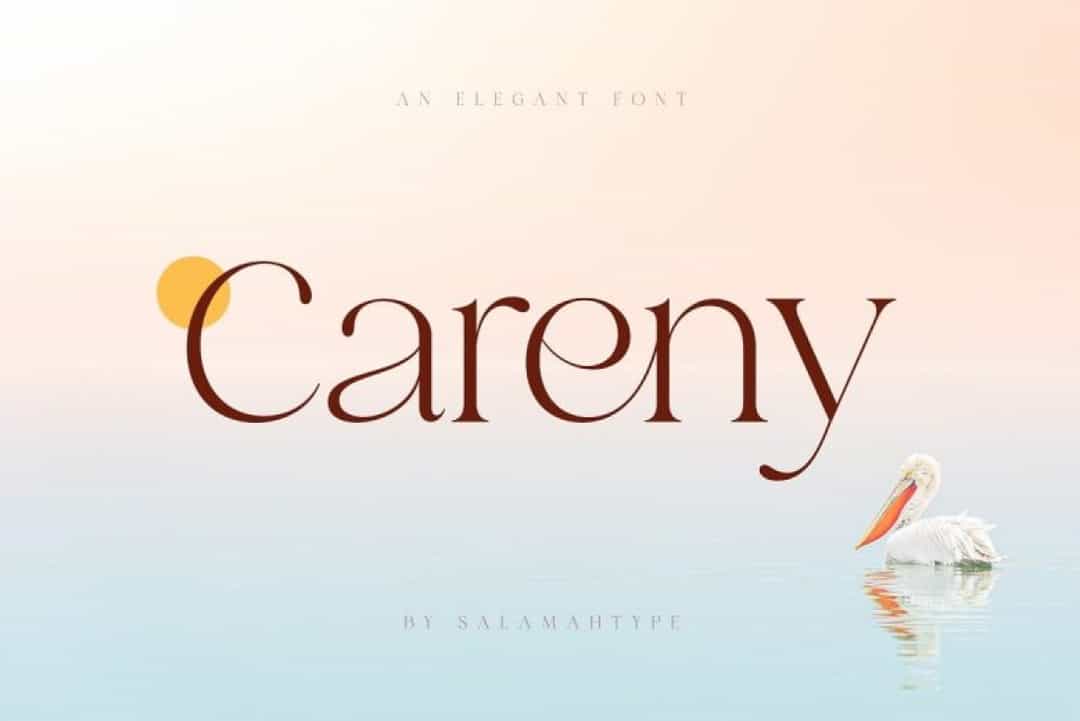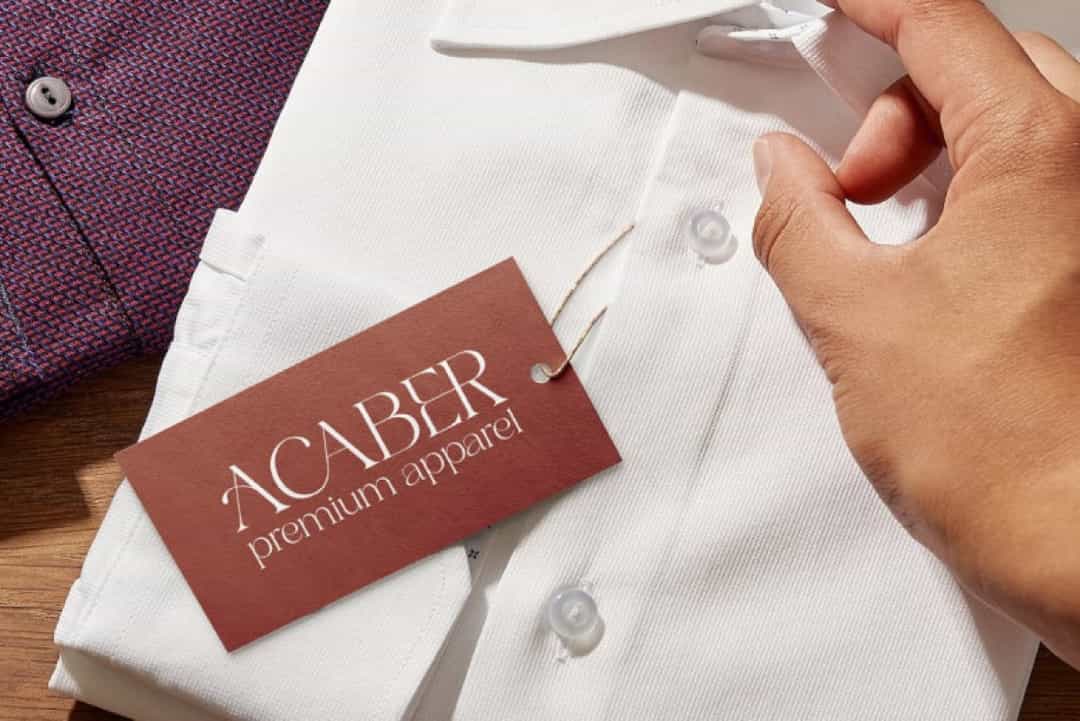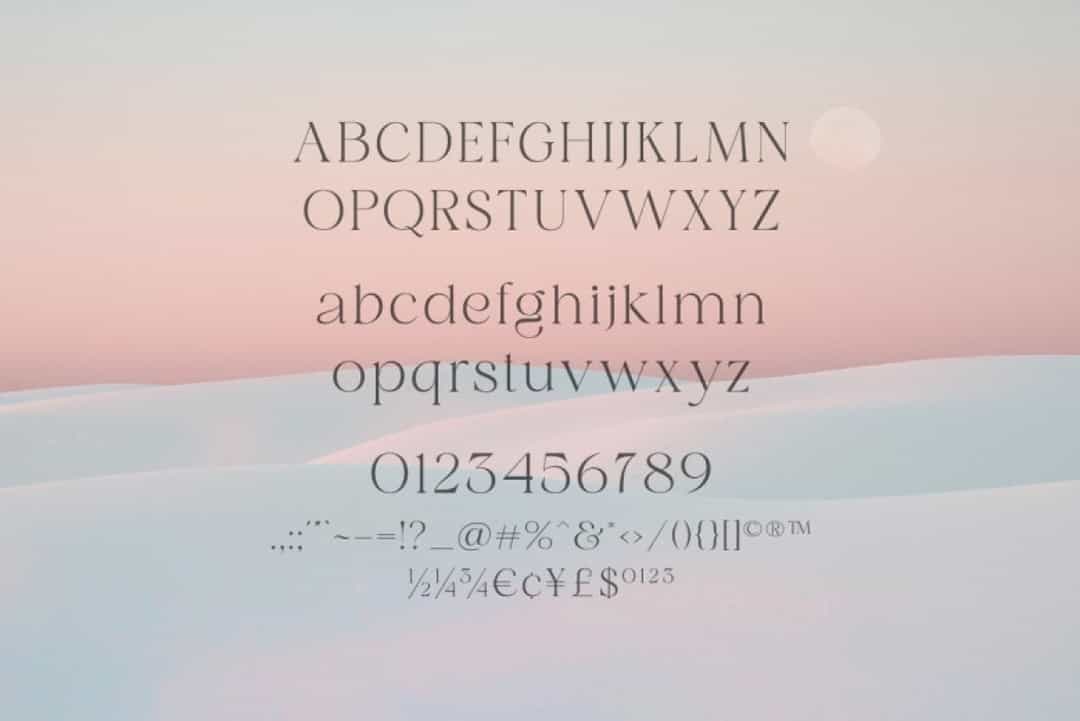
“Careny” – an elegant and contemporary serif typeface – makes an impressionful first impression when added to any design, adding sophistication with its smooth design and perfectly curving curves. Careny makes an excellent choice for magazine layouts or logo designs alike – offering both classic elegance and modern sophistication at once! Careny makes an excellent option for those seeking flexible yet trendy typeface that effortlessly bridges classic and modern elegance seamlessly.